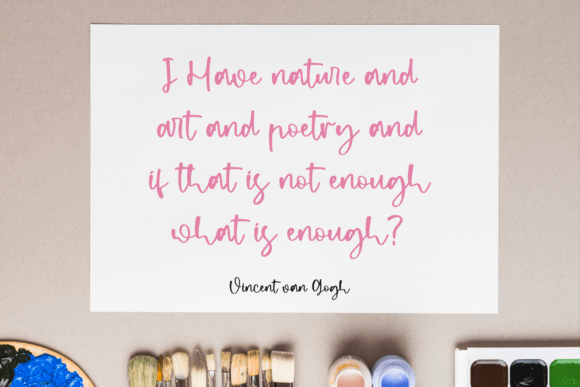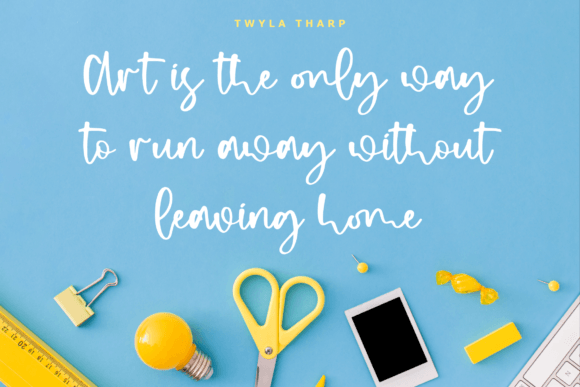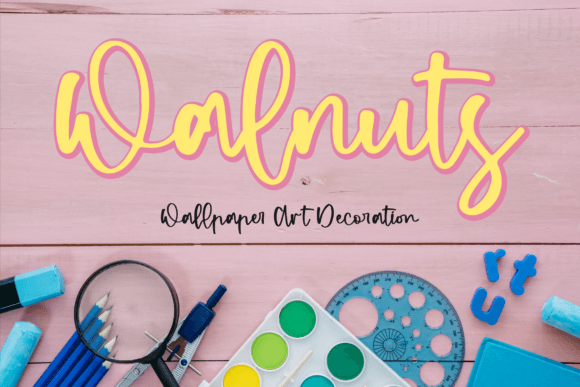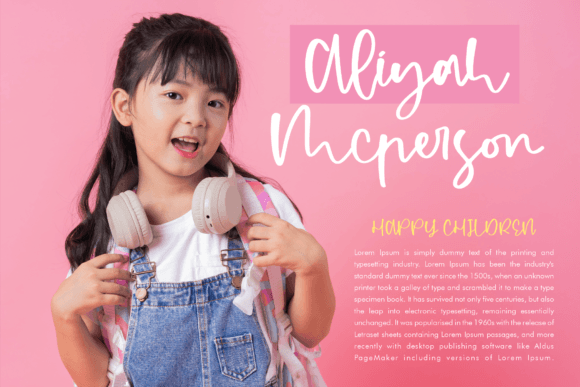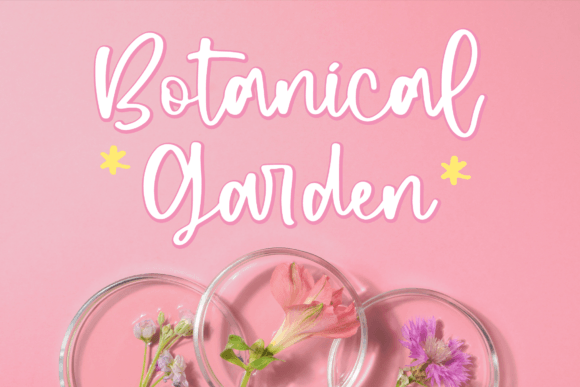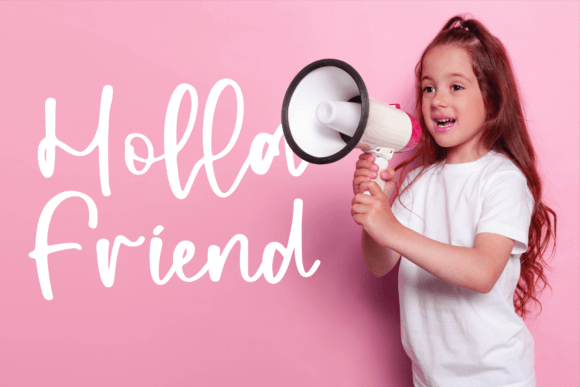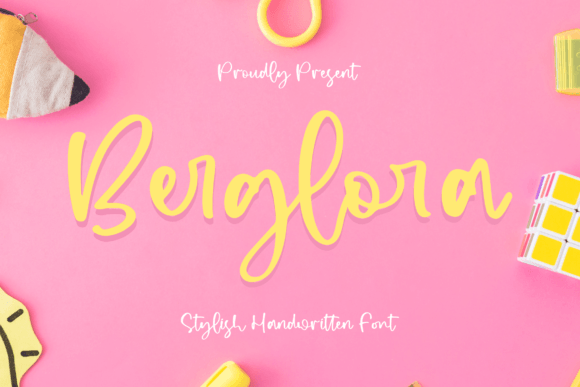
Berglora Font: The Elegant and Charming Choice for Designers and Crafters
Are you looking for a font that exudes elegance and charm? Look no further than the Berglora Font. This beautiful handwritten font is perfect for designers and crafters who want to add a touch of sophistication to their projects. In this article, we’ll take a closer look at the Berglora Font, its features, and how you can use it to elevate your designs.
What is Berglora Font?
Berglora Font is a modern calligraphy font that feels equally charming and elegant. Its unique and flowing script makes it perfect for a variety of design projects, from wedding invitations to business cards. The font is designed to give your designs a personal and handwritten touch, making them stand out from the crowd.
Features of Berglora Font
The Berglora Font has several features that make it a popular choice among designers and crafters. Some of its key features include:
- Handwritten touch: The Berglora Font has a unique and flowing script that gives your designs a personal and handwritten touch.
- Elegant and charming: The font exudes elegance and charm, making it perfect for designs that require a sophisticated look.
- Versatile: The Berglora Font can be used for a variety of design projects, from wedding invitations to business cards.
- Easy to read: The font is clear and easy to read, making it perfect for designs that require a lot of text.
Uses of Berglora Font
The Berglora Font is perfect for a variety of design projects, including:
- Wedding invitations: The font’s elegant and charming look makes it perfect for wedding invitations, save-the-date cards, and other wedding-related designs.
- Thank you cards: The Berglora Font is also great for thank you cards, greeting cards, and other types of stationery.
- Quotes and posters: The font’s unique and flowing script makes it perfect for quotes and posters that require a touch of elegance.
- Logos and branding: The Berglora Font can also be used for logos and branding projects that require a sophisticated and elegant look.
- Business cards: The font is also great for business cards, making it perfect for professionals who want to make a good impression.
Tips for Using Berglora Font
Here are some tips for using the Berglora Font in your designs:
- Use it for headings: The Berglora Font is perfect for headings and titles, making it a great choice for designs that require a touch of elegance.
- Pair it with a sans-serif font: Pairing the Berglora Font with a sans-serif font can create a beautiful contrast and make your designs more visually appealing.
- Experiment with colors: The Berglora Font looks great in a variety of colors, so don’t be afraid to experiment and find the perfect color for your design.
- Use it for digital and print designs: The Berglora Font can be used for both digital and print designs, making it a versatile choice for designers.
The Berglora Font is a beautiful and elegant font that can add a touch of sophistication to your designs. Its unique and flowing script makes it perfect for a variety of design projects, from wedding invitations to business cards. With its versatility, ease of use, and elegant look, the Berglora Font is a great choice for designers and crafters who want to create stunning designs.
Whether you’re a professional designer or a crafter, the Berglora Font is a great addition to your font collection. So why not give it a try and see how it can elevate your designs?